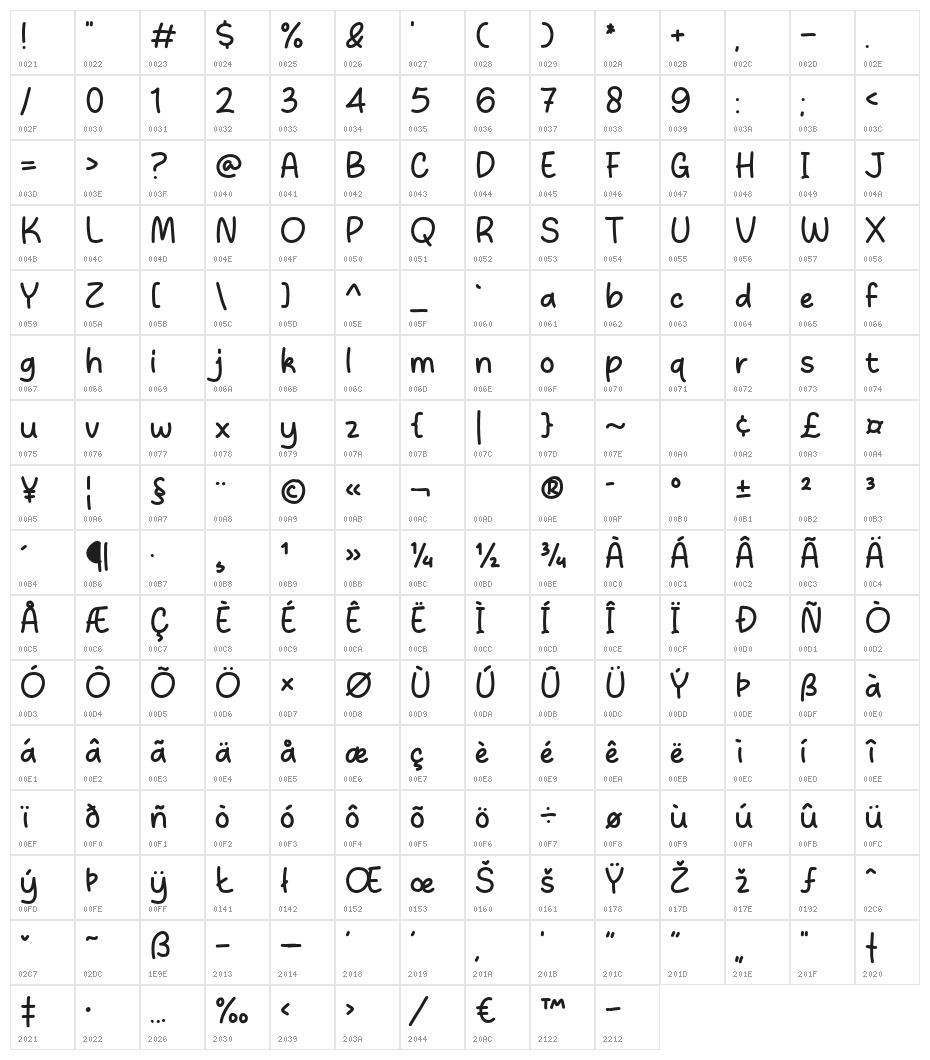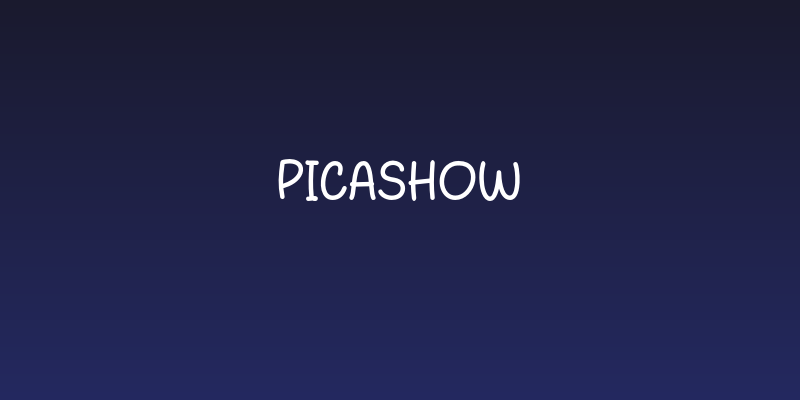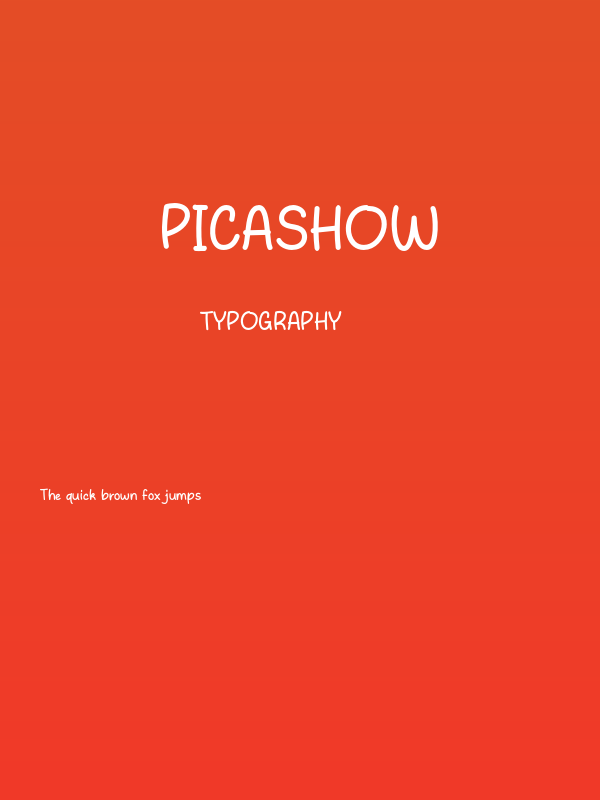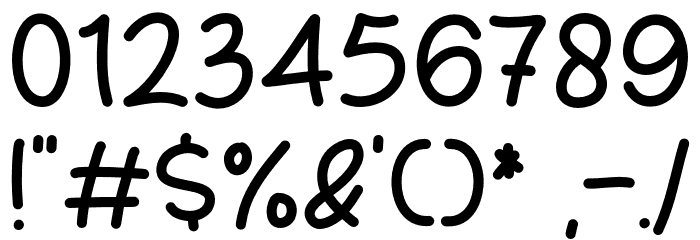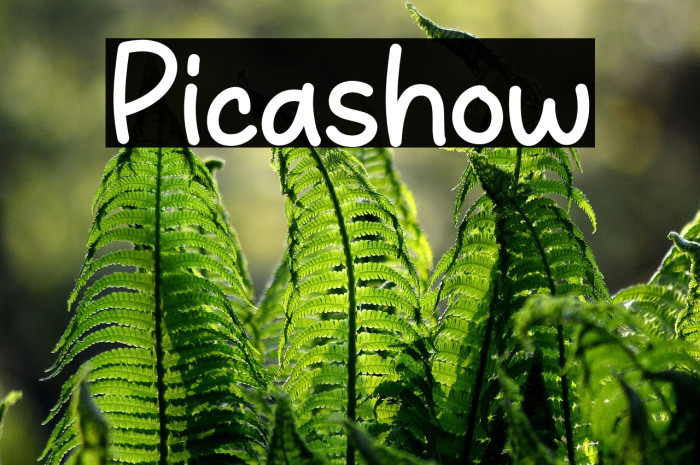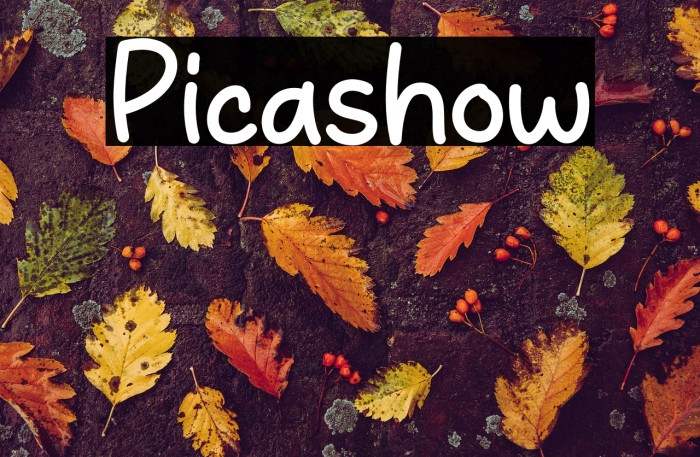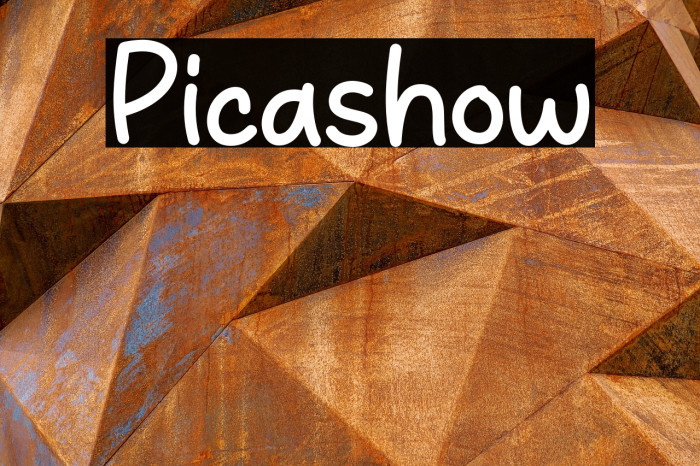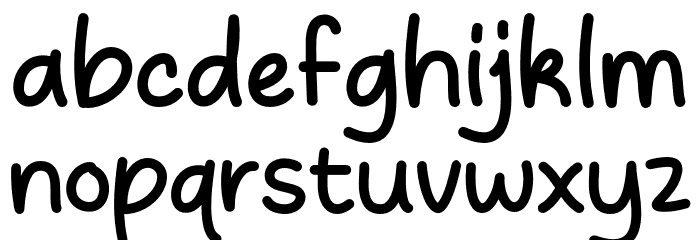
Picashow Font
Picashow Description
This playful and casual font features rounded, hand-drawn characters that exude a friendly and approachable vibe. The letters have a consistent thickness, giving them a uniform appearance while maintaining a whimsical charm. The uppercase and lowercase letters are well-balanced, with slightly exaggerated curves that enhance the font's informal style. The numerals and special characters are designed to match the overall aesthetic, ensuring cohesion across all text elements. This font is perfect for projects that require a touch of personality and warmth.
| Use Case | Headlines, Informal text, Creative projects |
| Proposed Projects | Ideal for children's books, casual branding, greeting cards, and playful social media graphics. |